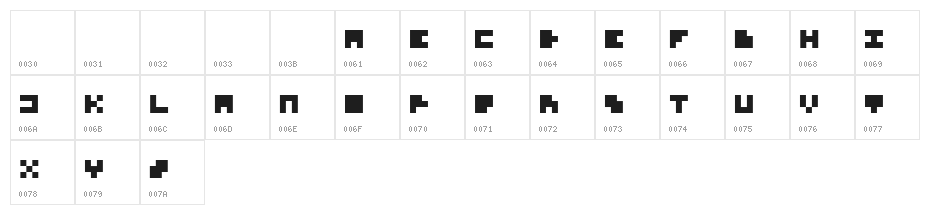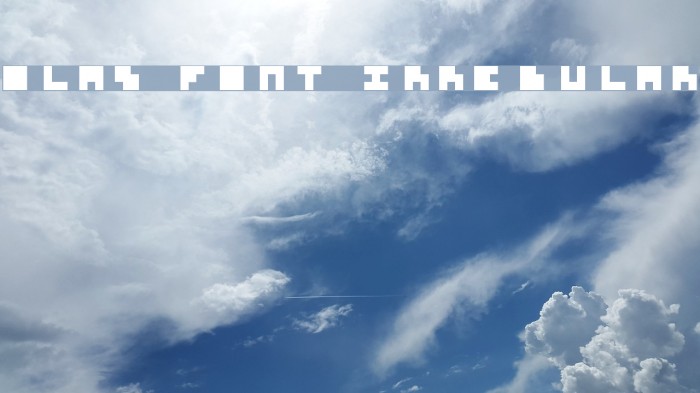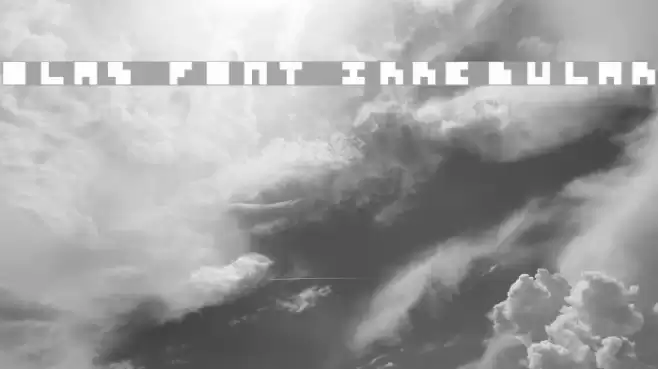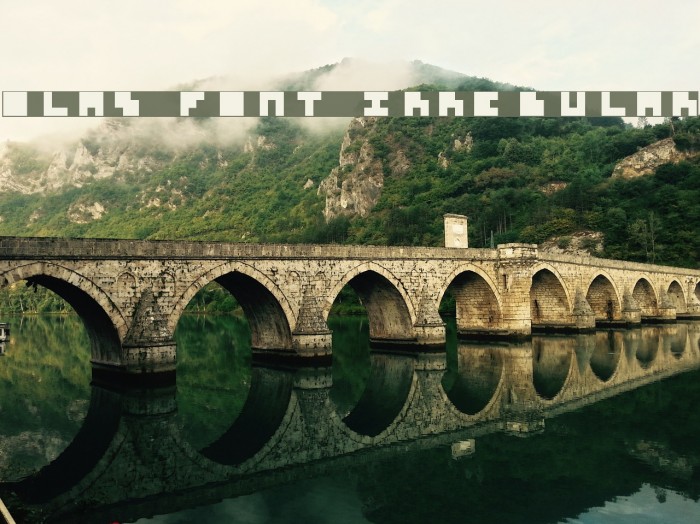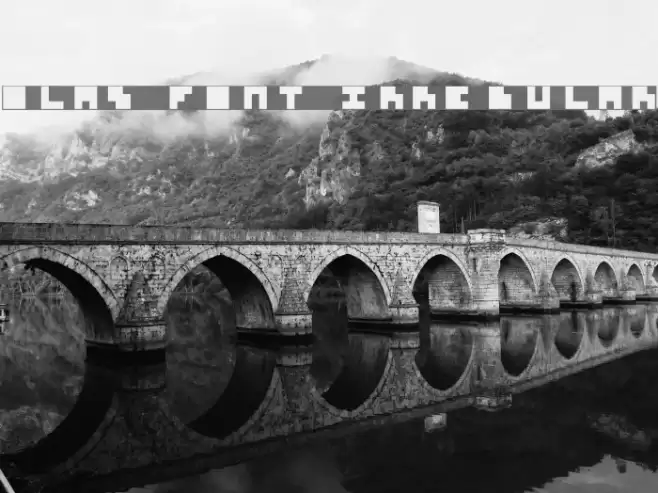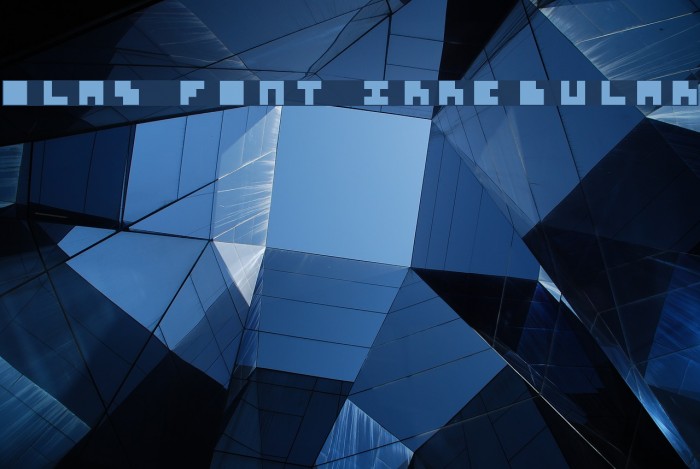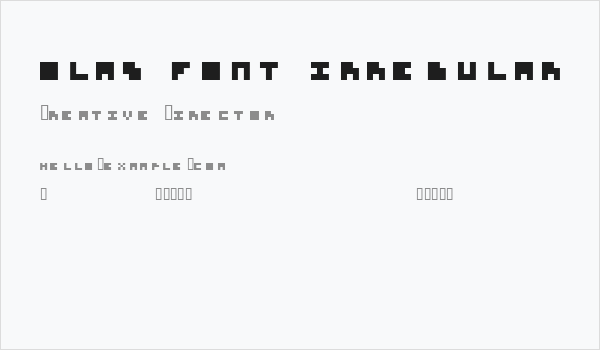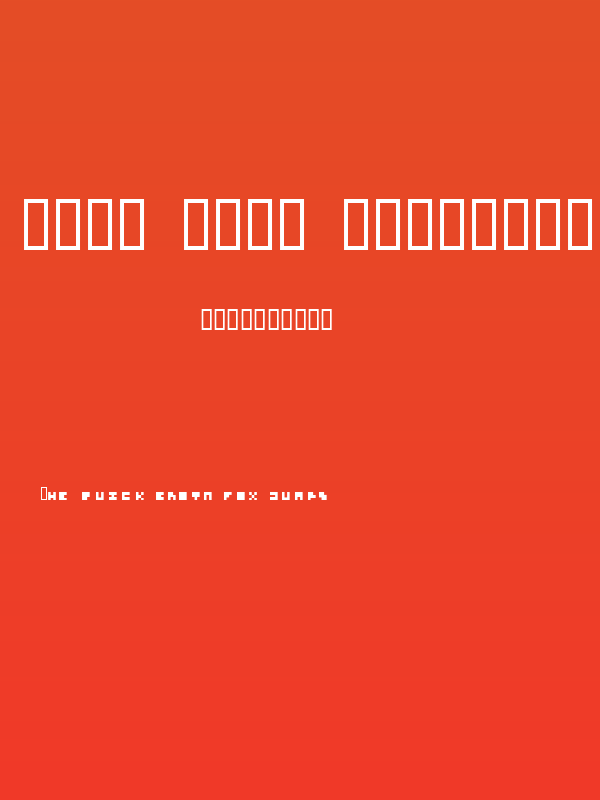
olas font irregular Font
olas font irregular Description
This font features a highly geometric and blocky design, characterized by its bold and irregular shapes. Each letter is constructed with sharp angles and straight lines, creating a distinct and modern appearance. The font lacks curves, giving it a rigid and mechanical feel, which is further emphasized by the uniformity in stroke width. The uppercase and lowercase letters maintain a consistent style, with the lowercase being slightly smaller in height but equally bold. The numerals and special characters follow the same design principles, ensuring a cohesive look across all characters. This font's unique style makes it stand out, offering a futuristic and digital aesthetic.
| Proposed Projects | Ideal for digital art, video game graphics, tech branding, and futuristic-themed posters. |